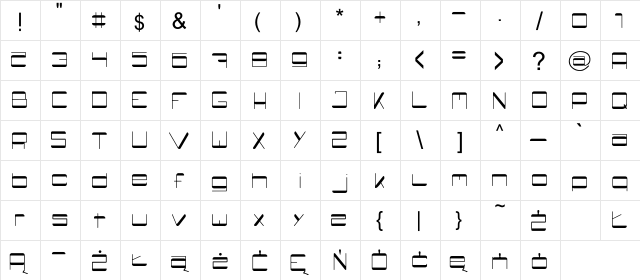
ryszard Regular
| Foundry | mik |
| Designer | mik pasinski 2001 |
Design Context for ryszard Typeface
ryszard takes a measured approach to typography — its balanced proportions and neutral character make it a reliable workhorse for both digital and print work.